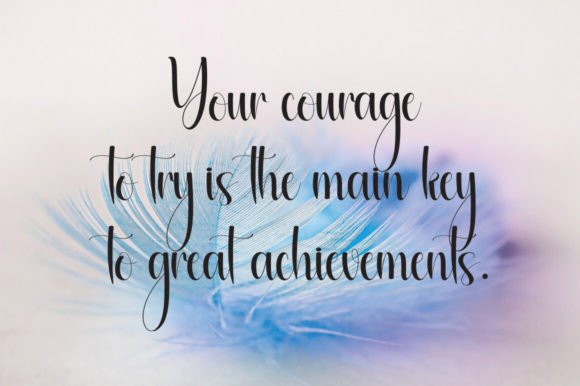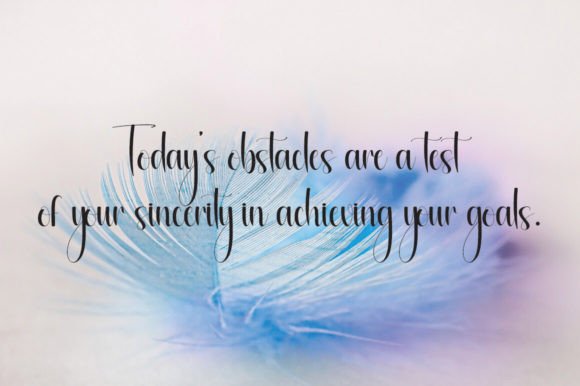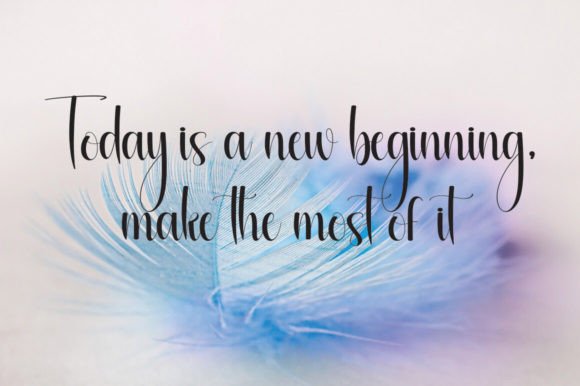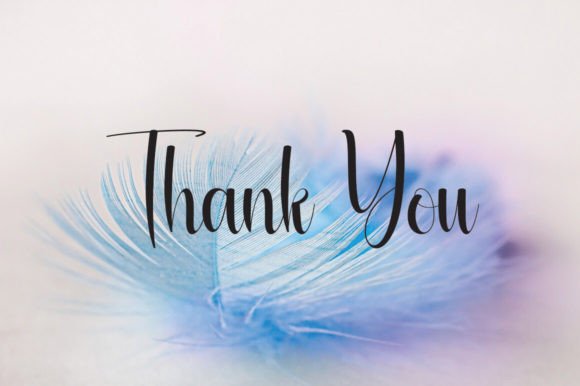
Unleashing Whimsy: The Boho Hipster Font
Have you ever stared at a blank page, feeling the weight of a creative project staring back at you? The cursor blinks, taunting you to bring your vision to life. And then, it happens – a spark of inspiration strikes, and the words begin to flow. You’re in the zone, and nothing can stop you. This is the magic of creativity, and it’s exactly what the Boho Hipster Font is designed to evoke.
This enchanting handwritten font is more than just a tool – it’s a partner in your creative journey. With its charming cursive flair and gentle strokes, Boho Hipster Font infuses your designs with a sense of romance and whimsy, making every project a work of art. As a designer, you’ll appreciate the unique character and personality that Boho Hipster Font brings to your work, setting it apart from the ordinary.
Key Features of Boho Hipster Font
- Font Style: Script, Handwritten, and Whimsical, making it perfect for creative and artistic projects.
- Unique Characteristics: Features a mix of cursive and print letterforms, giving it a unique and eclectic feel, and includes swashes and flourishes to add a touch of personality.
- Font Pairing: Designed to pair well with sans-serif fonts, making it a great choice for creating visually appealing and harmonious typography.
Boho Hipster Font Review
At first glance, Boho Hipster Font appears to be the epitome of eclectic charm. Its unique blend of vintage and modern elements has the potential to add a touch of personality to any design project. ✨ The font’s varied line weights and intricate details work well for titles, headings, and other prominent text elements, making it a great choice for creative projects such as magazine covers, music festival posters, or artisanal brand identities.
One of the font’s greatest strengths is its ability to evoke a sense of free-spiritedness and nonconformity. It’s perfect for designers looking to add a bit of edge to their work without resorting to overtly trendy or clichéd styles. ✨ Additionally, the font’s extensive character set and ligature support make it a viable option for longer blocks of text.
- ⚠️ In some instances, the font’s irregularities can make it difficult to read, particularly in smaller text sizes.
- ⚠️ The font’s lack of consistency in terms of letter spacing and word spacing can lead to a somewhat chaotic visual experience.
Overall, Boho Hipster Font is a solid choice for designers looking to add a touch of whimsy and personality to their work. While it may not be suitable for every project, its unique strengths and charms make it a valuable addition to any designer’s toolkit.
To get the most out of the Boho Hipster font, try the following:
- Pair it with distressed or vintage textures for a unique look.
- Use it in combination with other hipster fonts for a layered effect.
The Boho Hipster font is perfect for:
- Designing flyers and posters for music festivals and events.
- Creating social media graphics and ads for fashion and lifestyle brands.
- Adding a touch of whimsy to blog posts and articles.
Alternatives to “Boho Hipster Font” for Designers
Great Vibes is a beautiful, elegant script font perfect for creating a sense of luxury and sophistication. It features flowing lines and organic shapes, making it ideal for branding, packaging, and advertising materials. Great Vibes is a great alternative to Boho Hipster Font for designers who want to add a touch of high-end style to their designs.
Comparison: While Boho Hipster Font is more laid-back and eclectic, Great Vibes is more refined and sophisticated. Great Vibes is better suited for high-end branding and advertising, while Boho Hipster Font is more suitable for indie and bohemian-inspired designs.